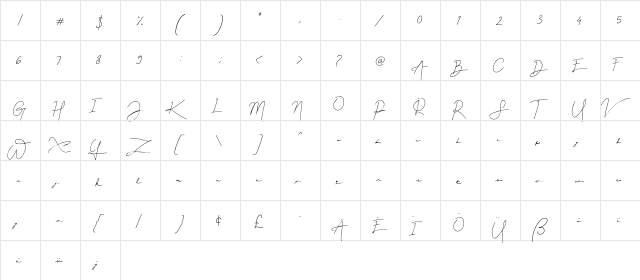
Gellattik Janggan Regular
Design Context for Gellattik Janggan Typeface
Gellattik Janggan is a composed and adaptable typeface that performs quietly and consistently across a wide range of design contexts.